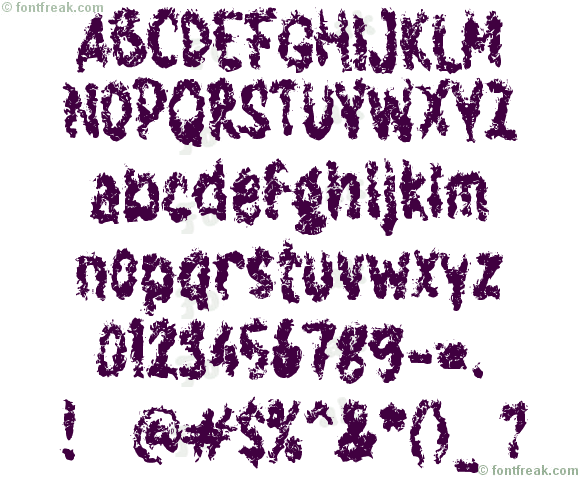
HANGUS
About HANGUS
The HANGUS font by Wahyu Eka Prasetya is a striking display typeface that embodies a unique artistic flair. As a decorative font, HANGUS features irregular, expressive forms that evoke a sense of creativity and dynamism. The strokes exhibit a heavy weight with a textured appearance, giving it a bold presence that captures attention. The contrast between thick and thin parts adds visual interest, while the spacing between characters is carefully designed to maintain readability despite its unconventional style. The overall look is gritty and raw, making it suitable for designs that aim to stand out.
This font is ideally suited for a variety of creative applications. It shines in contexts such as movie posters, where its dramatic flair can enhance visual storytelling. HANGUS is also an excellent choice for restaurant menus, particularly for establishments looking to convey a unique, artistic vibe. Additionally, it can be effectively used in merchandise designs, album covers, or even social media graphics that require a bold statement. Graphic designers, small business owners, and content creators will find HANGUS font free download to be a valuable asset in their typography toolkit.
Targeting a diverse audience, HANGUS appeals to those looking for a font that breaks the mold of traditional typefaces. Its distinctive characteristics make it perfect for projects that require a touch of creativity and individuality. In a world where typography plays a crucial role in branding and design, the HANGUS font stands out with its artistic expression and versatility. Choosing this font means embracing a unique visual identity that resonates with audiences, making any design project unforgettable.